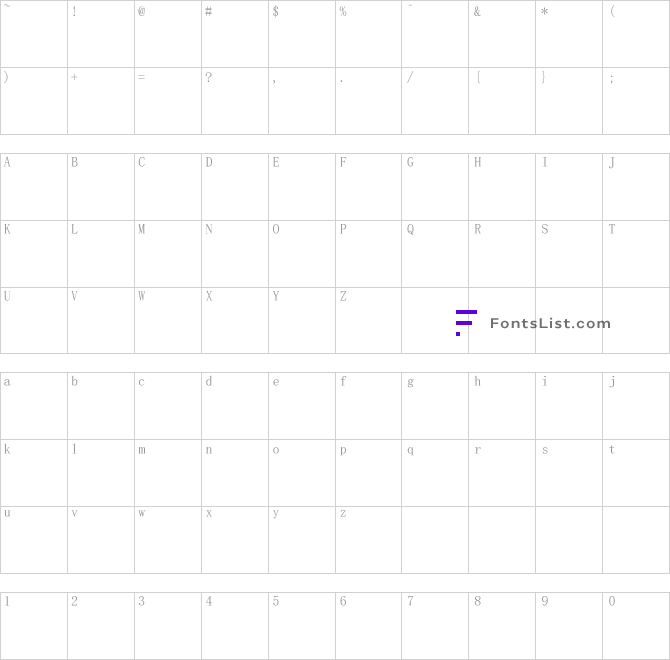
Arphic-Pensinkai-Medium-GB.ttf is a very beautiful artistic font, Arphic-Pensinkai-Medium-GB.ttf is widely used in the design and printing of various books and pictures,Arphic-Pensinkai-Medium-GB.ttf has a strong visual impact,Arphic-Pensinkai-Medium-GB.ttf is a commonly used font in newspapers, magazines and books, and is used in posters, e-commerce Poster design, store design, logo design, font design and other fields.Arphic-Pensinkai-Medium-GB.